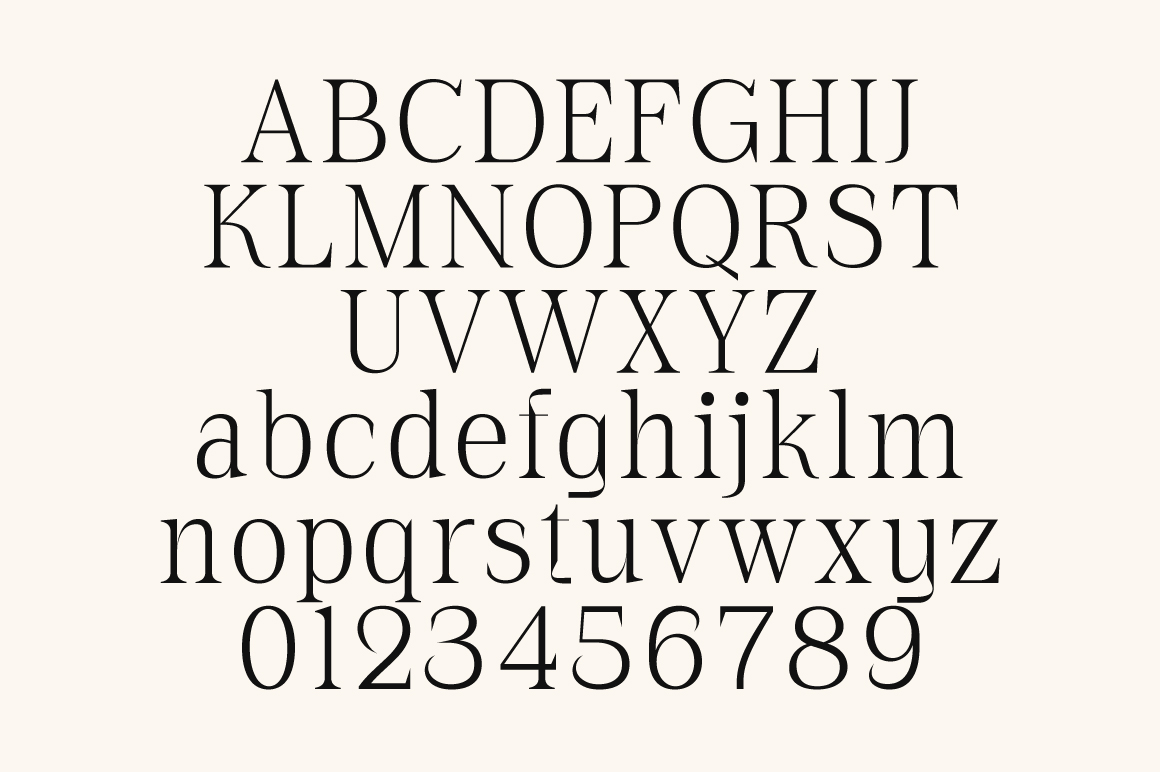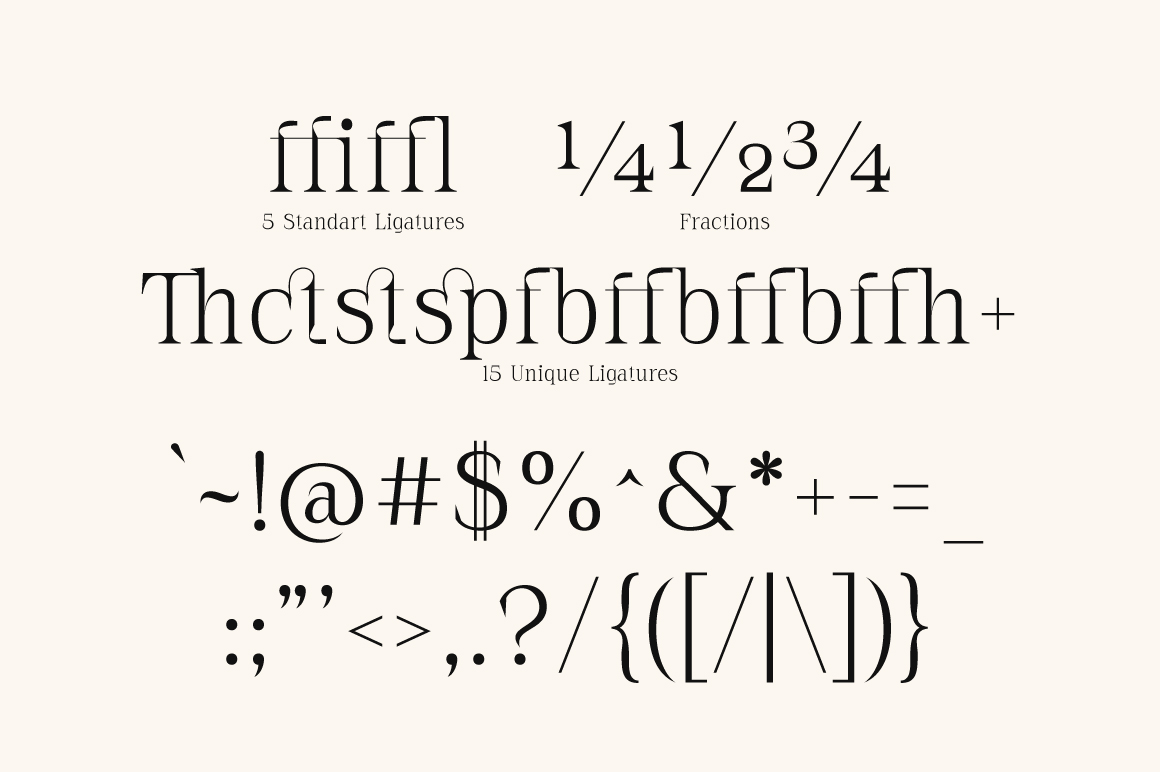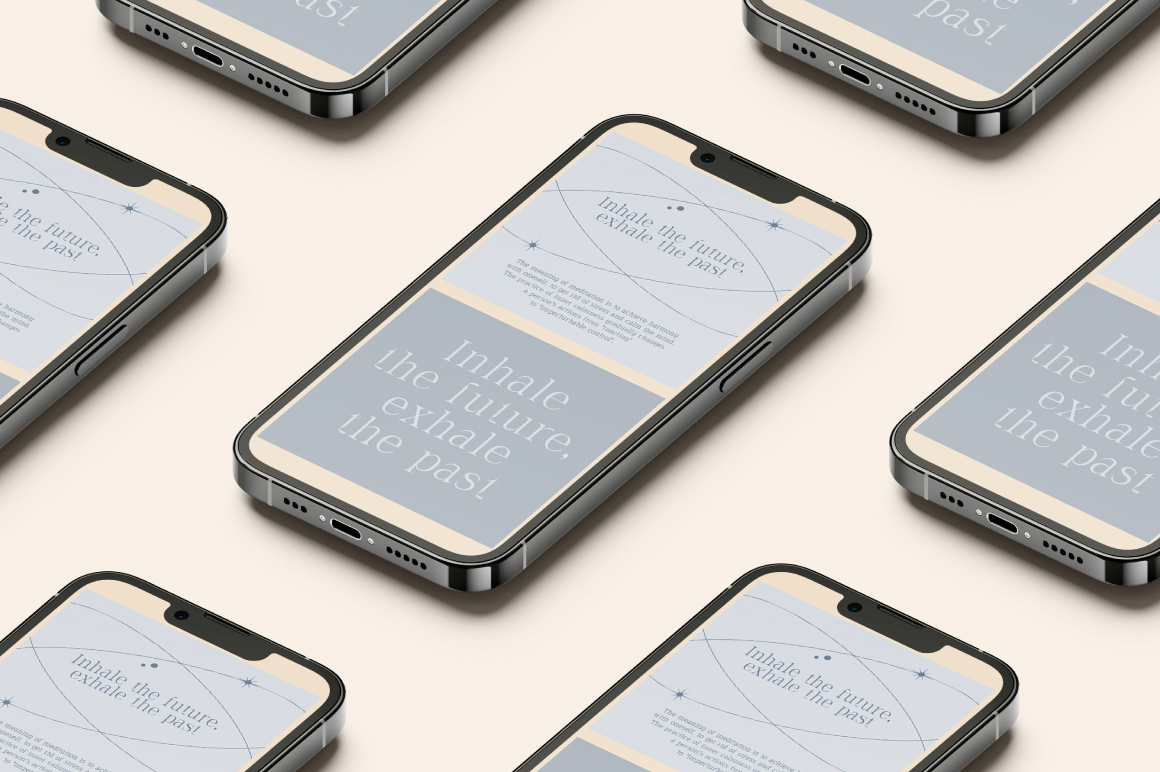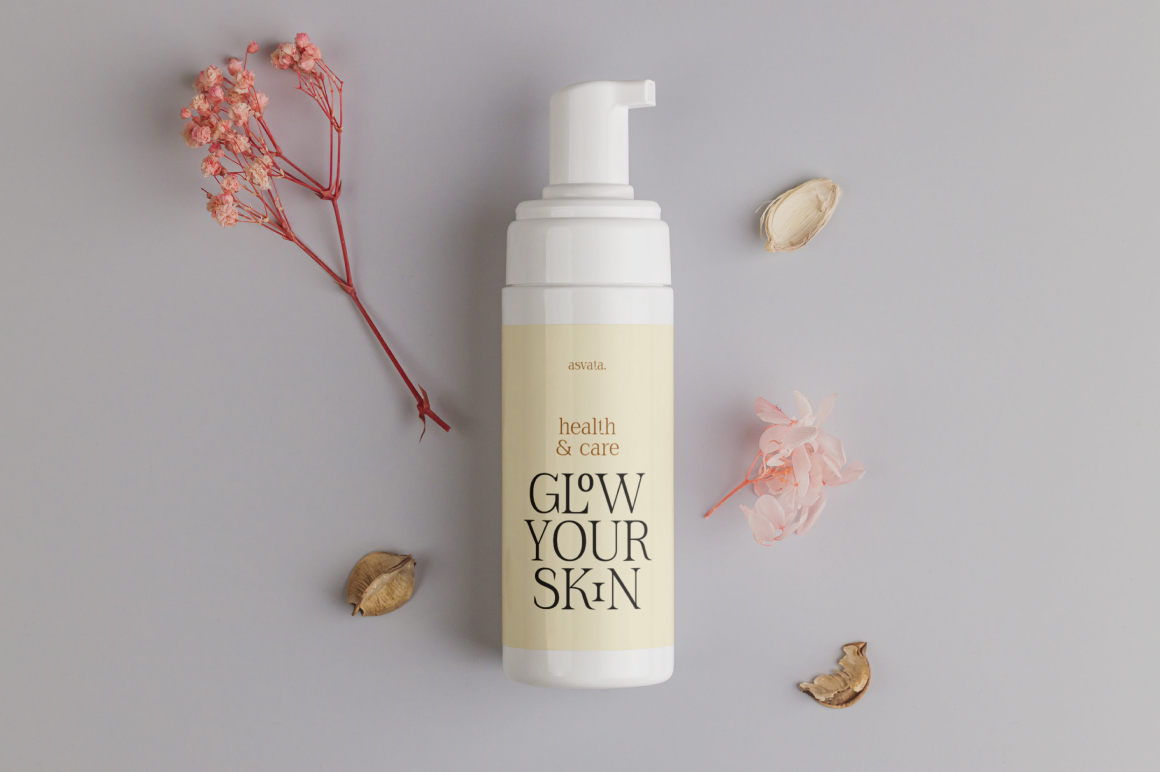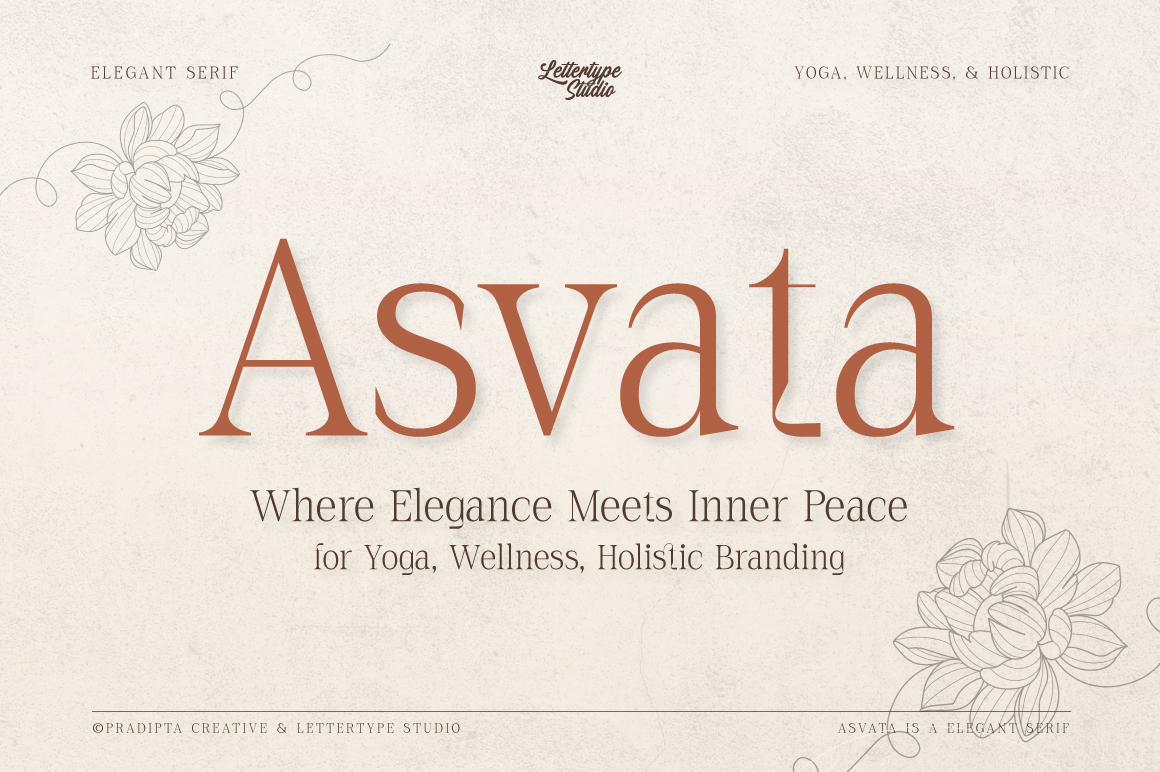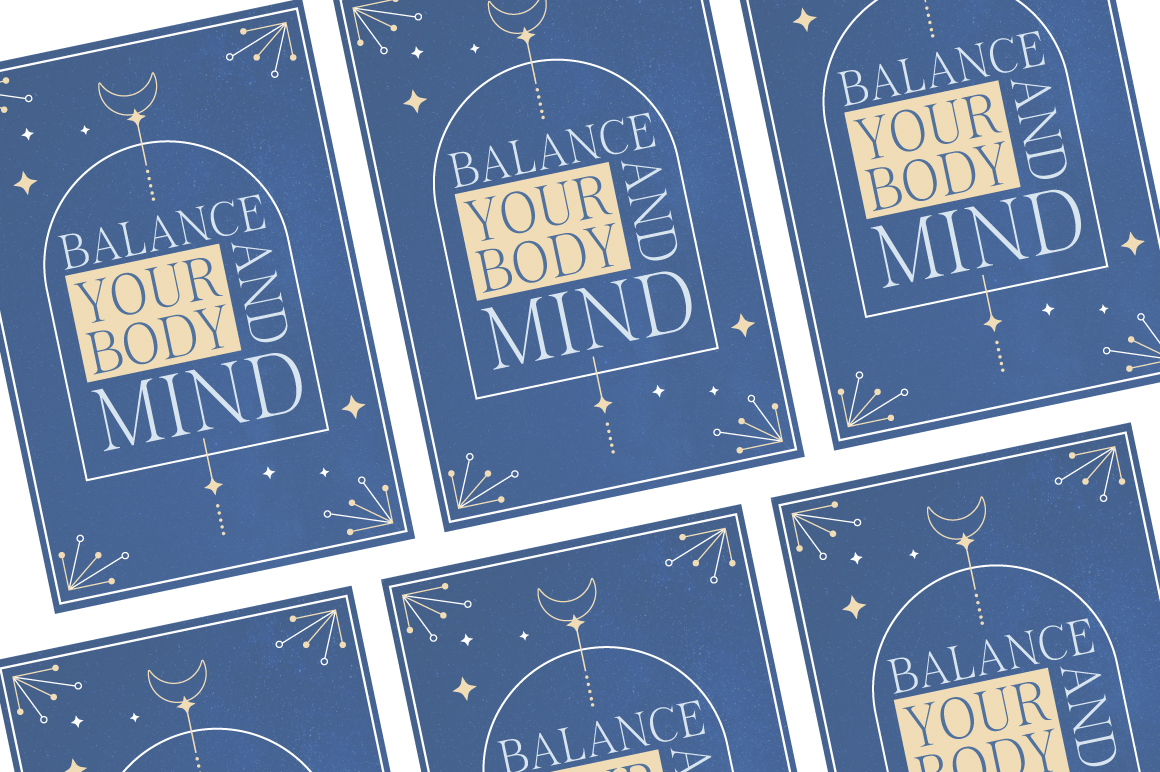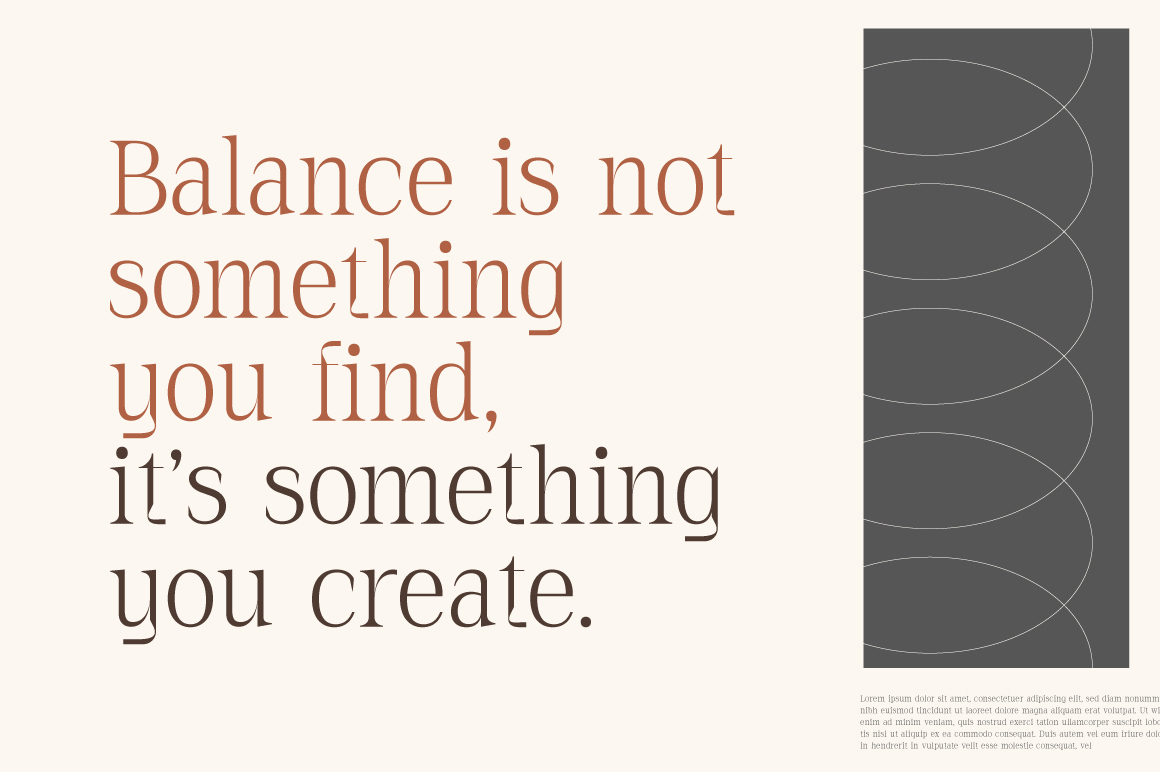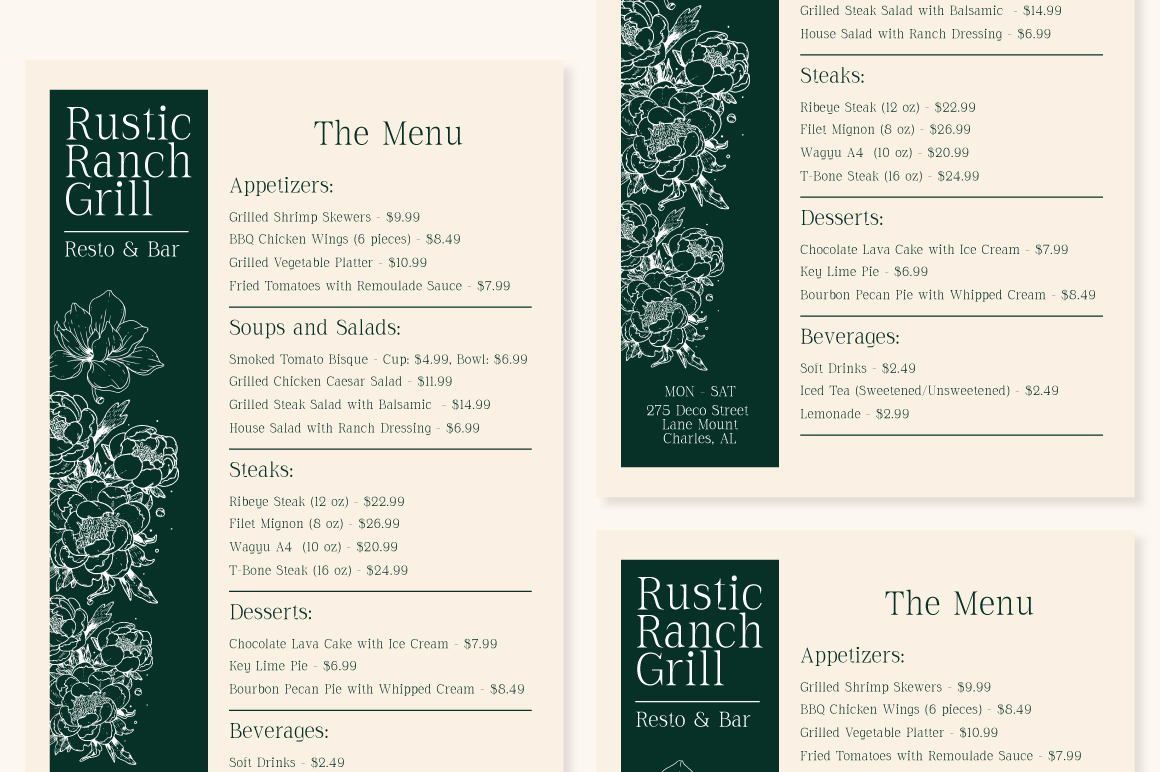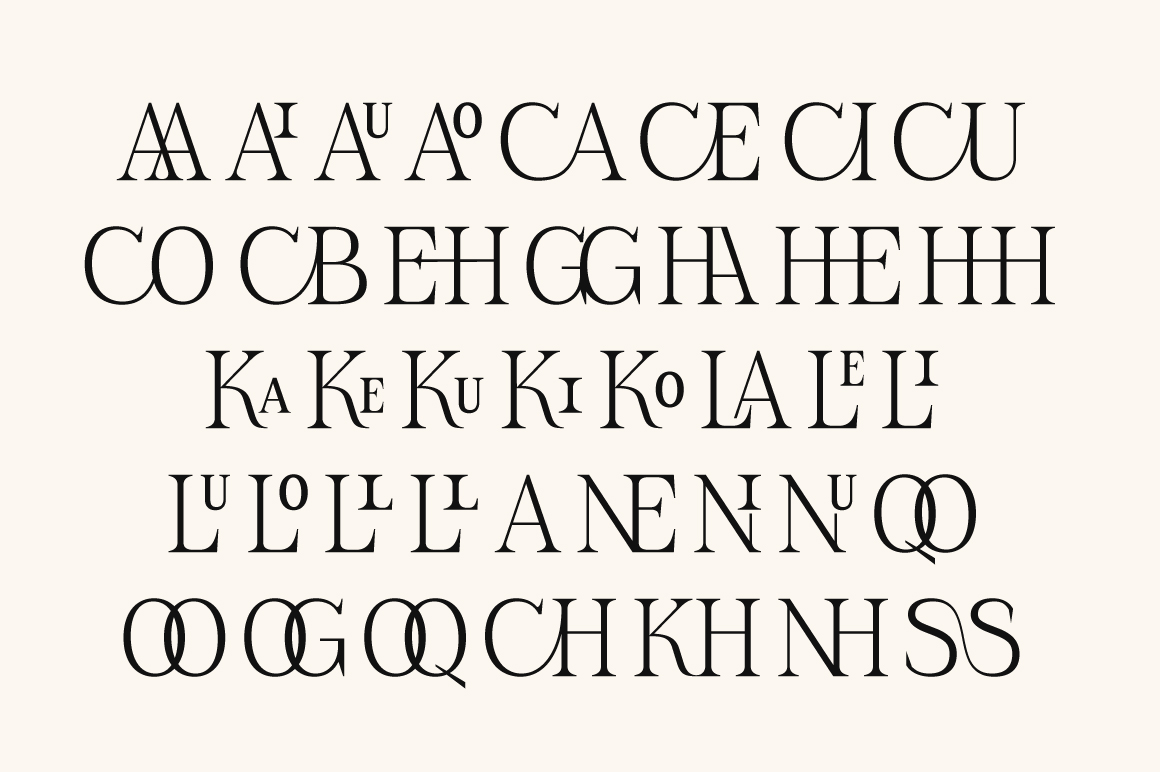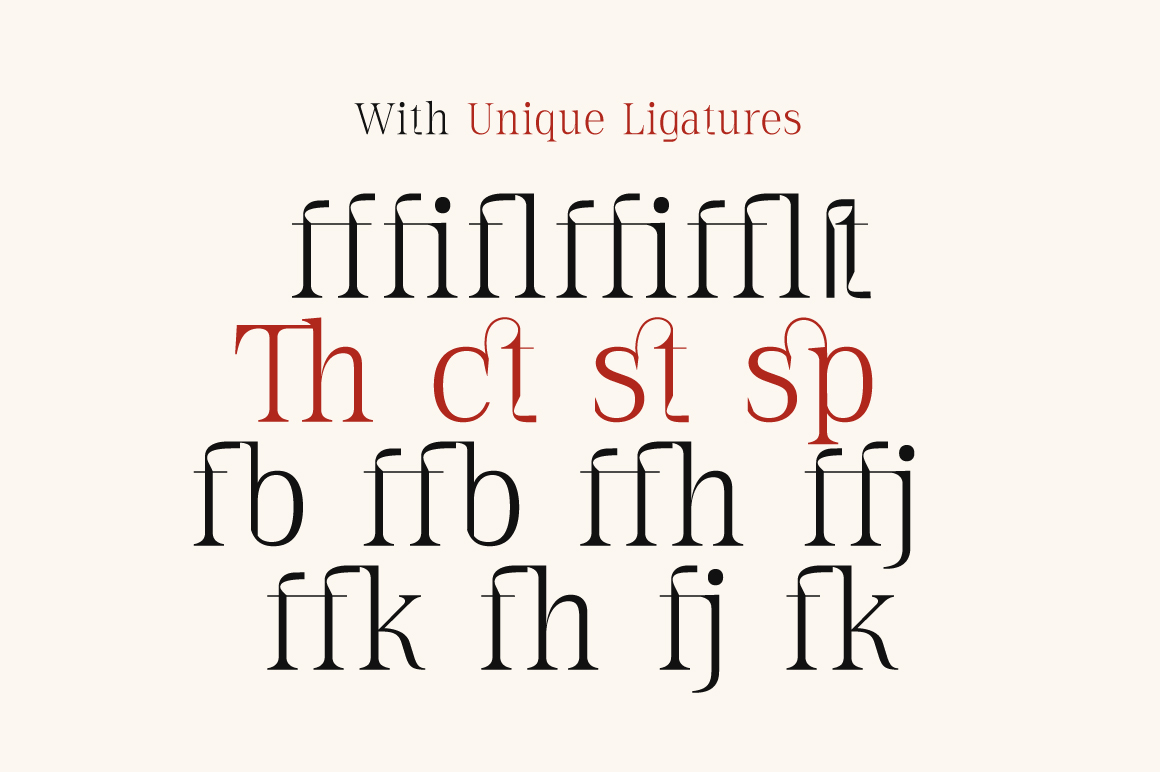
Asvata
Asvata is a timeless serif font with organic curves, refined contrast, and a tranquil presence. Rooted in elegance and spiritual depth, Asvata is perfect for wellness branding, yoga studios, holistic product packaging, and mindful design. Its graceful letterforms evoke balance, clarity, and connection, offering a soft yet professional voice across editorial, logo, and digital projects.
Use Asvata to bring harmony to your design. Whether in packaging, invitations, or lifestyle branding, this font radiates inner calm, purpose, and visual serenity.
Asvata Features:
• 1 Styles in Upright
• 483 Glyphs Total
• 270+ Languages Support
• Wellness, spa & yoga studio branding
• Organic product packaging & skincare design
• Mindful lifestyle magazines & editorial layouts
• Invitations, quotes & calming social media visuals
• Boutique logos & holistic business identity